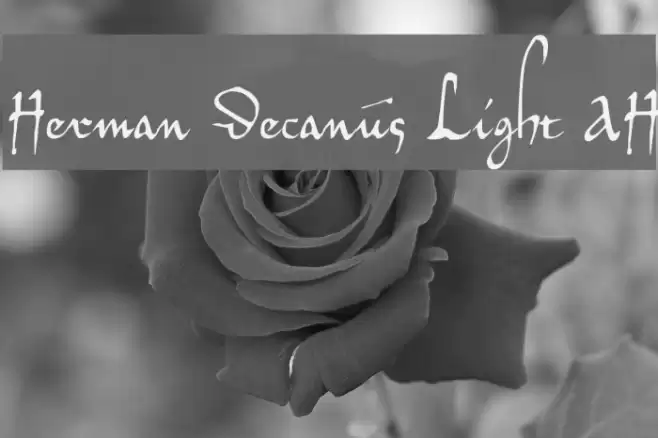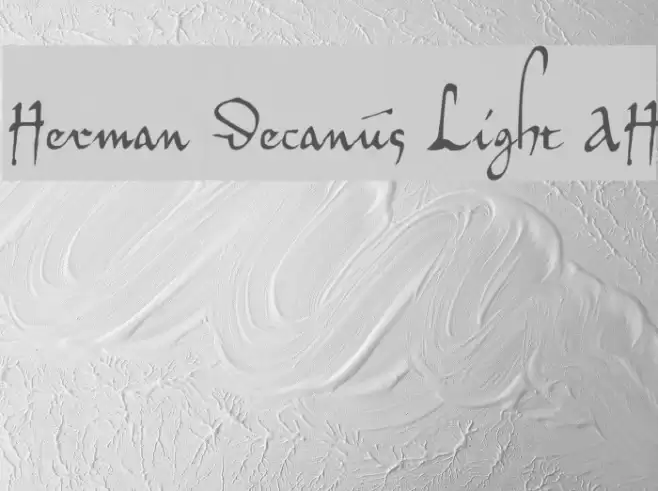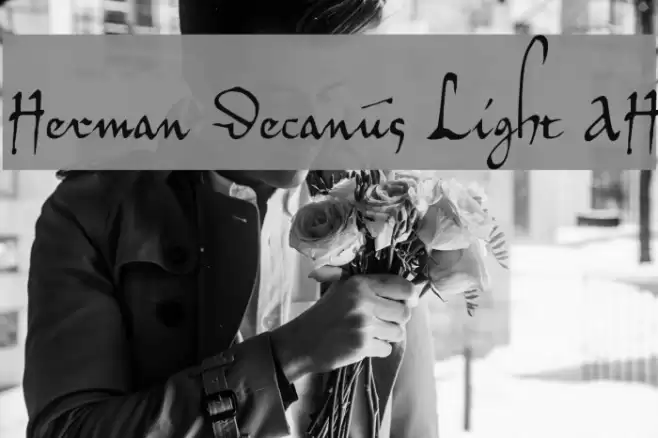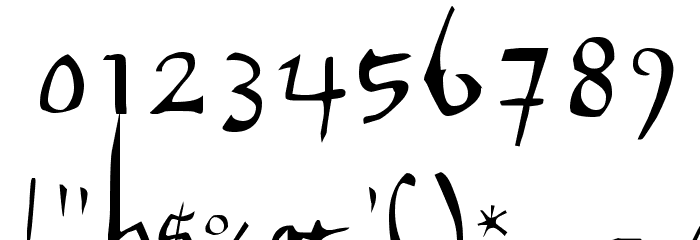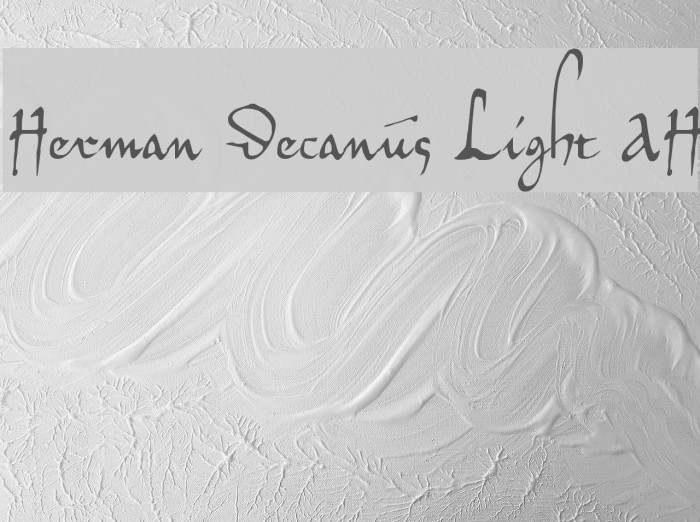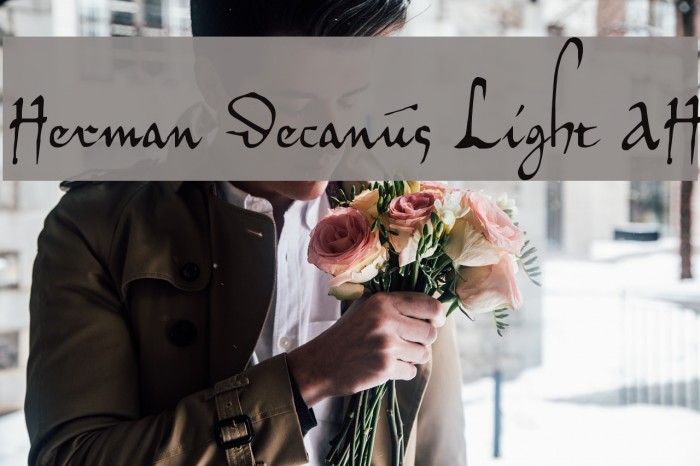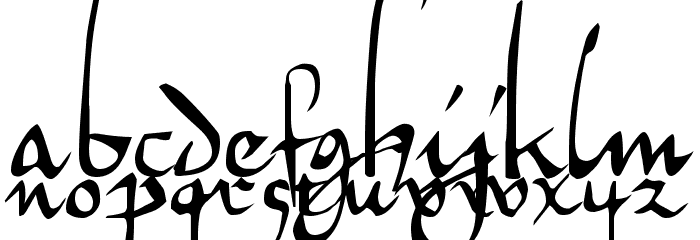
Herman Decanus Light AH Font
Herman Decanus Light AH Description
This font features a distinctive and artistic style, characterized by its calligraphic and slightly gothic appearance. The uppercase letters exhibit sharp, angular strokes with a medieval flair, while the lowercase letters maintain a fluid, cursive quality. The numerals are bold and consistent with the overall theme, providing a cohesive look. Special characters are uniquely styled, adding to the font's decorative nature. This font's intricate design makes it suitable for projects that require a touch of elegance and historical charm.
A calligraphic font with a gothic, medieval style from Uncategorized fonts.
- Proposed Projects: Ideal for invitations, historical-themed designs, book covers, and artistic posters.
- Overall Style: Vintage
- Use Case: Logos, Headlines, Artistic projects